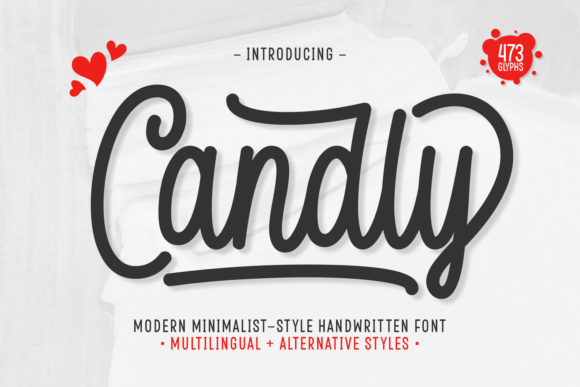
Candly Font: Elevate Your Designs with Elegant Handwritten Charm
In the world of typography, few fonts manage to strike a balance between modern minimalism and effortless charm. Candly Font is one such beautifully crafted handwritten script font that has captured the hearts of designers and crafters alike. Its smooth, flowing strokes mimic natural handwriting, creating an authentic and personal feel that instantly adds warmth to any design.
The Essence of Candly Font
Candly Font is more than just a typeface; it’s an expression of elegance and sophistication. The letterforms are soft yet confident, featuring rounded curves, balanced proportions, and stylish swashes that give your text a signature look. This font is perfect for designers looking to add a touch of personality to their projects, whether it’s a branding campaign, a wedding invitation, or a personal blog.
What Makes Candly Font Stand Out?
Candly Font boasts several distinctive features that set it apart from other script fonts:
- Smooth, Flowing Strokes: The font’s smooth, flowing strokes are reminiscent of natural handwriting, giving your text an authentic and personal feel.
- Rounded Curves and Balanced Proportions: The letterforms feature rounded curves and balanced proportions, making them soft yet confident.
- Stylish Swashes: The font includes stylish swashes that add a touch of elegance and sophistication to your text.
- Subtle Variations in Stroke Width: The subtle variations in stroke width add a handcrafted touch without sacrificing clarity, making the font both expressive and highly readable.
Candly Font is a versatile typeface that can be used in a variety of design projects, including:
- Branding and Packaging: Use Candly Font to create elegant and sophisticated brand identities that stand out from the crowd.
- Wedding Invitations and Stationery: Add a touch of romance and whimsy to your wedding invitations and stationery with this beautiful script font.
- Blogging and Social Media: Use Candly Font to create engaging and visually appealing blog posts and social media graphics.
- Crafting and DIY Projects: Add a personal touch to your crafting and DIY projects with Candly Font’s unique and charming letterforms.
Tips for Using Candly Font Effectively
To get the most out of Candly Font, here are some tips to keep in mind:
- Use it as a Headline Font: Candly Font is perfect for headlines and titles, where its elegant and sophisticated letterforms can shine.
- Pair it with a Sans-Serif Font: Pair Candly Font with a sans-serif font for body text to create a beautiful contrast and add visual interest to your design.
- Experiment with Swashes: Don’t be afraid to experiment with the font’s swashes to add a touch of elegance and sophistication to your text.
- Use it in Combination with Images: Use Candly Font in combination with images to create visually appealing graphics that tell a story.
Candly Font is a beautifully crafted handwritten script font that is sure to elevate your designs with its elegant and charming letterforms. Its smooth, flowing strokes, rounded curves, and stylish swashes make it perfect for designers and crafters looking to add a touch of personality to their projects. Whether you’re creating a brand identity, a wedding invitation, or a personal blog, Candly Font is a versatile typeface that is sure to impress.
Get Ready to Fall in Love with Candly Font